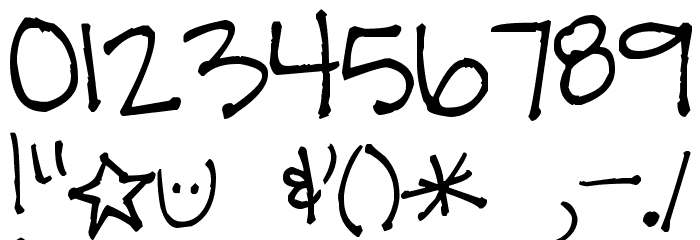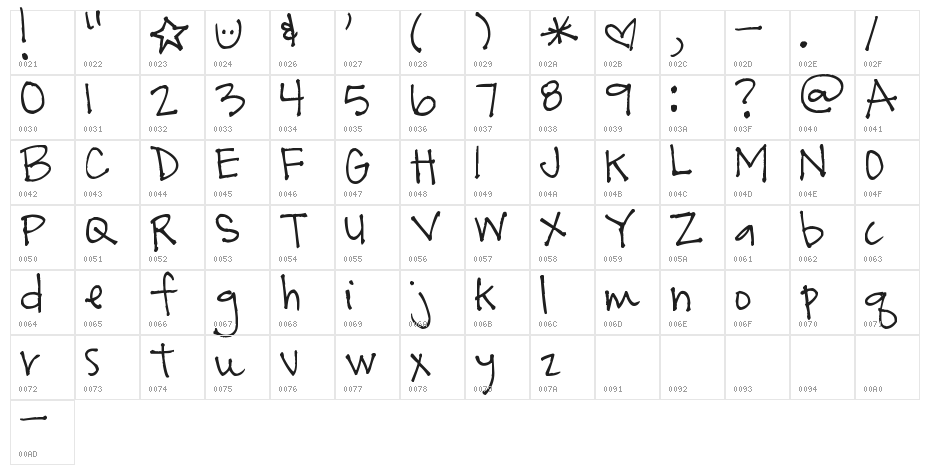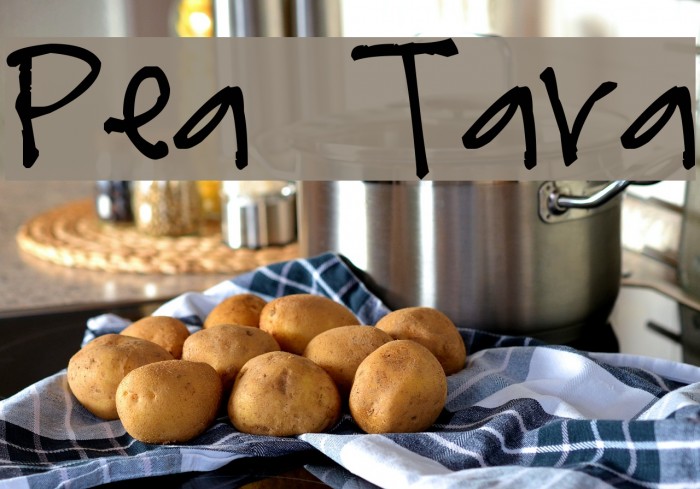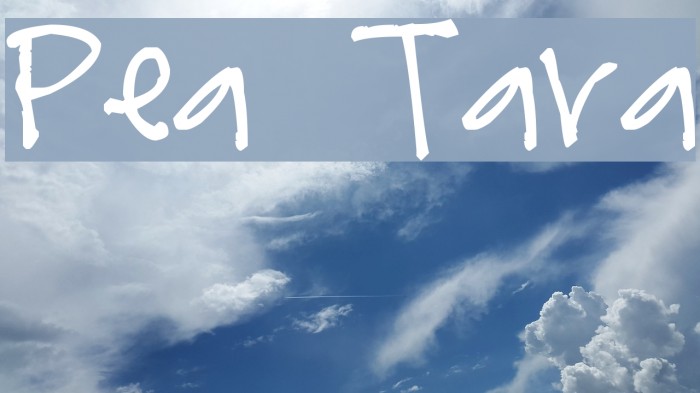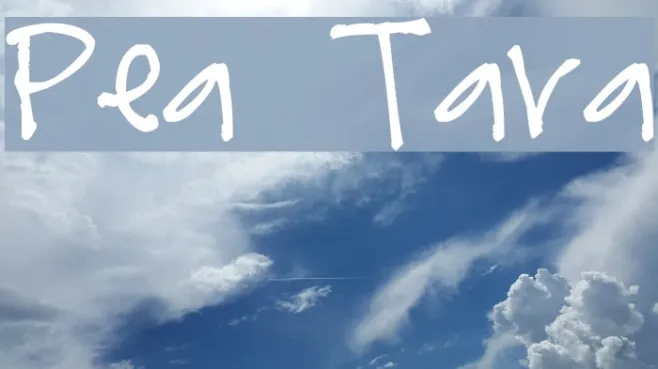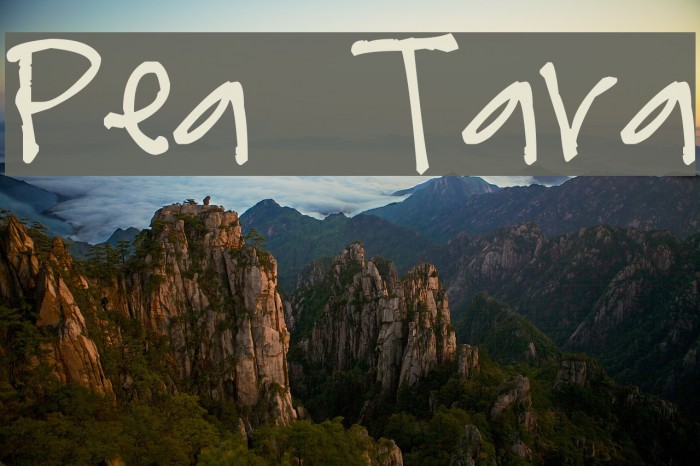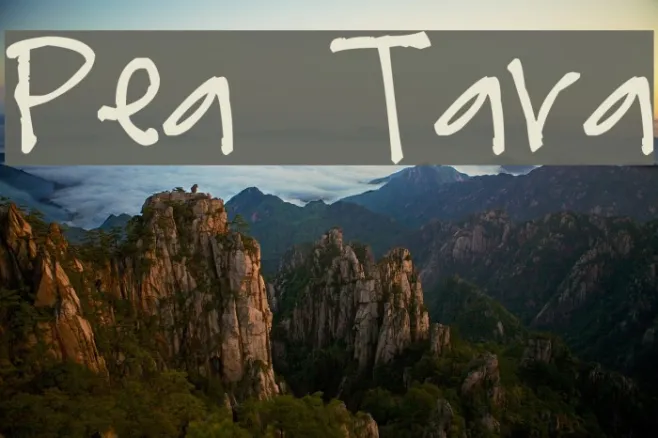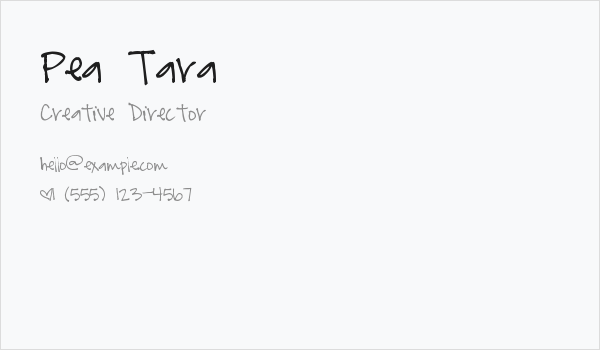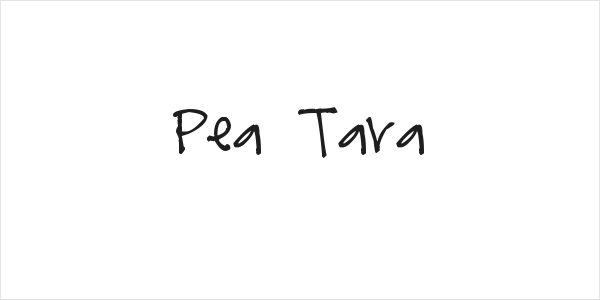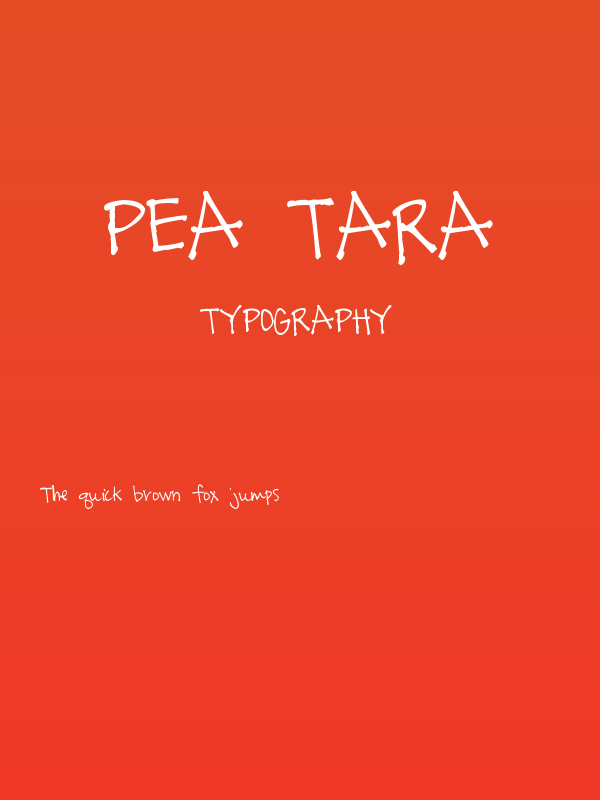
Pea Tara Font
Pea Tara Description
This font exudes a playful and casual handwritten style, characterized by its irregular strokes and informal appearance. The letters are slightly slanted, giving it a dynamic and lively feel. The uppercase and lowercase letters maintain a consistent flow, with some letters featuring unique embellishments, such as the dot over the 'i' and 'j' being slightly larger and more pronounced. The numbers are equally playful, with varying stroke thickness that adds to the font's charm. Special characters, including symbols like the star and smiley face, enhance its whimsical nature, making it ideal for creative and fun projects.